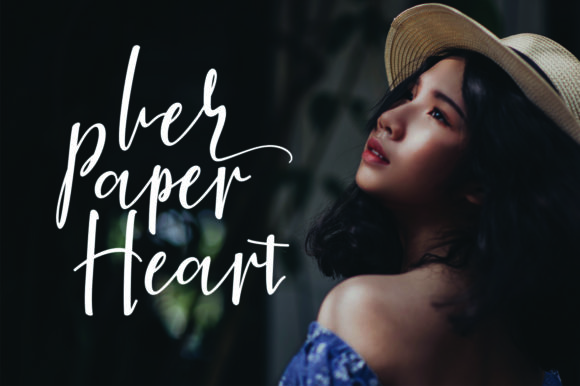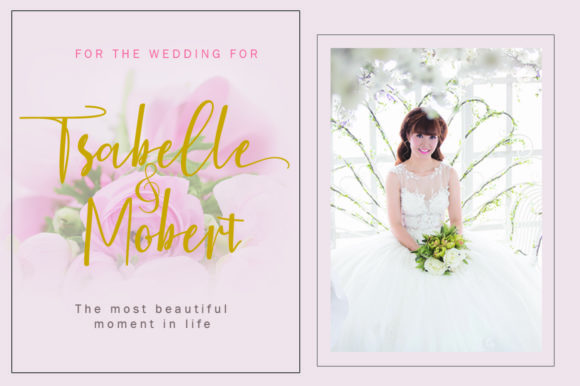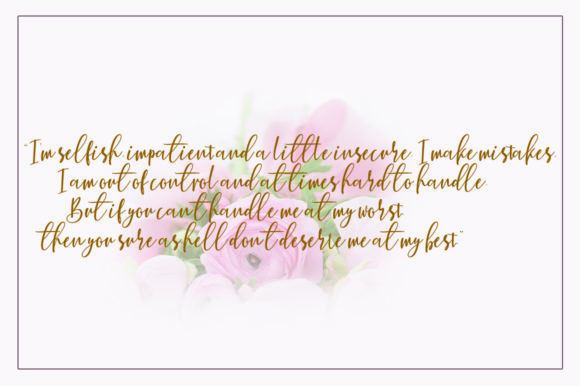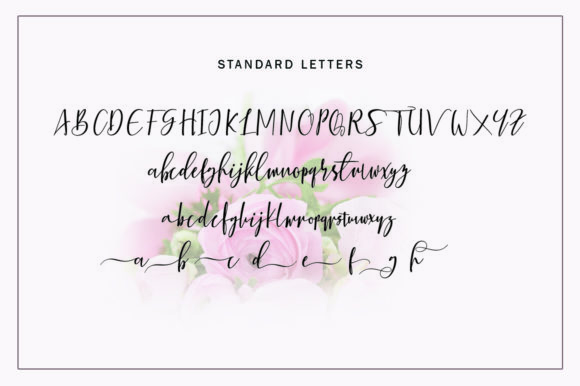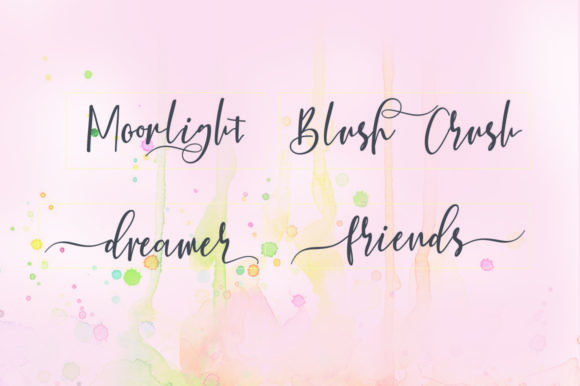
The Perfect Brush Stroke: Unveiling the Beauty of Berhilda Font
Have you ever been stuck trying to find the perfect font to match your creative vision? You’ve scrolled through countless options, only to end up with something that’s just…fine. But what if you could find a font that captures the essence of your unique style and transports your audience to a world of elegance and sophistication?
Enter the Berhilda Font, a modern calligraphy font that’s been making waves in the design world. With its natural writing style and feminine flair, this font is perfect for branding, wedding invites, magazines, and so much more. Whether you’re a seasoned designer or just starting out, the Berhilda Font is a valuable addition to your toolkit. Its versatility and timeless charm make it a go-to choice for creatives who want to add a touch of sophistication to their projects.
- Unique Characteristics: Berhilda Font features a unique blend of elegance and sophistication, making it ideal for high-end branding and design projects. Its intricate details and ornate flourishes add a touch of luxury and refinement.
Designer Review: Berhilda Font
Overall, I’d say the Berhilda Font has some great qualities that make it suitable for various design projects. ✨ The font’s elegant and sophisticated feel makes it perfect for high-end branding, luxury products, or anything that requires a touch of class. ✨ The designer has also done an excellent job in creating a wide range of weights and styles, giving users ample flexibility when it comes to choosing the right fit for their design.
- ✨ Elegant and sophisticated feel, perfect for high-end branding.
- ✨ Wide range of weights and styles for flexibility.
- ✨ Smooth and refined lines, making it easy to read.
- ⚠️ Limited language support, which may be a concern for multilingual projects.
- ⚠️ Some users may find the font too ornate or overused, which can lead to design fatigue.
The Berhilda Font is a solid choice for designers who need a sophisticated and elegant font for their projects. While it has some limitations, its strengths far outweigh its weaknesses. With proper usage, this font can elevate your design to the next level. However, it’s essential to weigh its pros and cons before making a final decision.
For a more professional look, pair Berhilda with a sans-serif font for headings.
For a more polished look, use the ‘ Kerning’ and ‘Tracking’ features to adjust the spacing between letters.
Berhilda Font is ideal for:
- Headings and titles in brochures, flyers, and posters.
- Body text in magazines, newsletters, and blogs.
- Labels and tags in e-commerce websites and social media.
- Use Berhilda Font for headings and titles to add a touch of elegance and sophistication.
- Combine Berhilda Font with distressed textures and vintage-inspired graphics to create a cohesive look.
- Experiment with different font sizes and colors to create visual hierarchy and emphasis.
- Pair Berhilda Font with earthy tones and natural textures to evoke a sense of adventure and exploration.
- Use bold, bright colors to highlight important information and create visual interest.
- Experiment with layering different design elements, such as illustrations and patterns, to create a rich and immersive experience.
- Use Berhilda Font for text and dialogue to add a touch of personality and charm.
- Combine Berhilda Font with colorful illustrations and playful graphics to create a cohesive and engaging visual identity.
Creative Project Ideas using Berhilda Font
Project 1: Vintage-Inspired Travel Brochure
Design a travel brochure that captures the essence of a bygone era, using Berhilda Font to create a sense of nostalgia and luxury.
Project 2: Whimsical Children’s Book
Design a children’s book that combines whimsy and wonder, using Berhilda Font to create a sense of enchantment and playfulness.